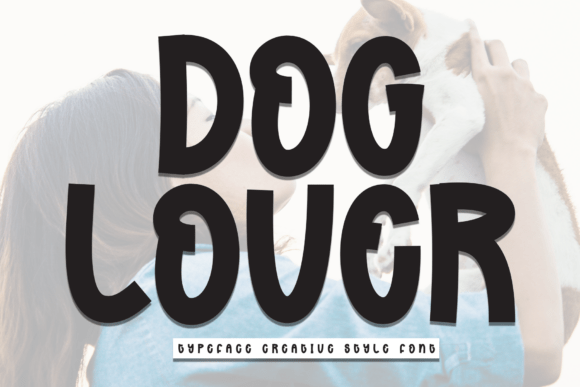
The Perfect Blend of Whimsy and Charm: Dog Lover Font
As a designer, have you ever found yourself searching for that special something to add a dash of personality to a project? Perhaps you’re working on a wedding invitation or a birthday card and want to convey the love and excitement that comes with it. That’s when I fell in love with Dog Lover Font – a delightful handwriting-inspired display font that brings a touch of whimsy and charm to any design.
This lovable font is the ultimate tool for designers who want to infuse their projects with a sprinkle of joy. With its fun and endearing letterforms, Dog Lover Font is perfect for creating beautiful wedding invitations, adorable cards, and any other design that calls for a friendly and approachable vibe. Whether you’re a seasoned designer or just starting out, Dog Lover Font is a valuable addition to your creative arsenal.
Dog Lover Font Key Features
- Font Family: A unique, hand-drawn font designed specifically for dog lovers, featuring a mix of playful and elegant elements.
- Unique Characteristics: The font features a custom-designed dog paw symbol, paw print, and other dog-related icons, adding a touch of whimsy and personality to your designs.
- Character Set: Includes a comprehensive set of characters, including uppercase and lowercase letters, numbers, punctuation marks, and the custom-designed dog paw symbol and icons.
Design Review: Dog Lover Font
Overall, I found the Dog Lover Font to be a fun and playful typeface that’s sure to appeal to pet owners and animal enthusiasts.
- Unique and creative design: The font’s whimsical feel and quirky character combinations make it stand out from more traditional sans-serif fonts.
- Expressive and emotive: The font effectively conveys a sense of joy, enthusiasm, and affection, which is perfect for projects focused on dogs or pet-related content.
- High-quality glyphs: The font’s letters and symbols are well-designed, clear, and easy to read, even at smaller sizes.
- Limited flexibility: The font’s playful design may not be suitable for formal or professional projects, where a more traditional or conservative typeface is required.
- Lack of character variation: While the font’s quirky character combinations are a strength, they may not provide enough variation for users who need to set large blocks of text.
- Potential readability issues: The font’s high contrast and decorative elements may make it difficult to read at very small sizes or in low-light conditions.
The Dog Lover Font is a fun and engaging typeface that’s perfect for pet-related projects or anyone looking to add a playful touch to their design. While it may have some limitations, its unique design and high-quality glyphs make it a great choice for the right project.
The Dog Lover Font is perfect for:
- Celebrating dog birthdays and adoption anniversaries.
- Creating pet-themed social media posts and graphics.
- Designing pet-related merchandise, such as t-shirts and mugs.